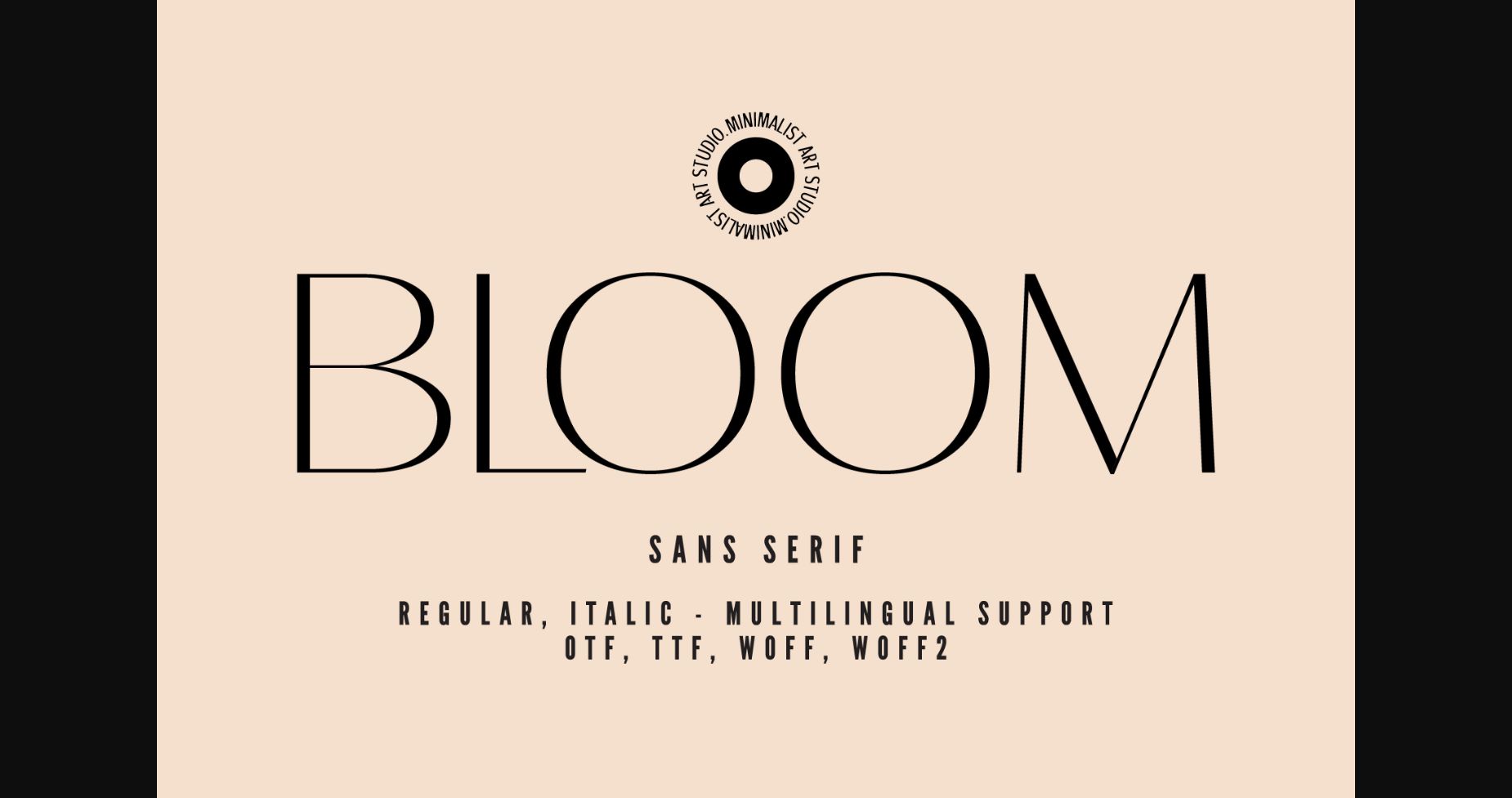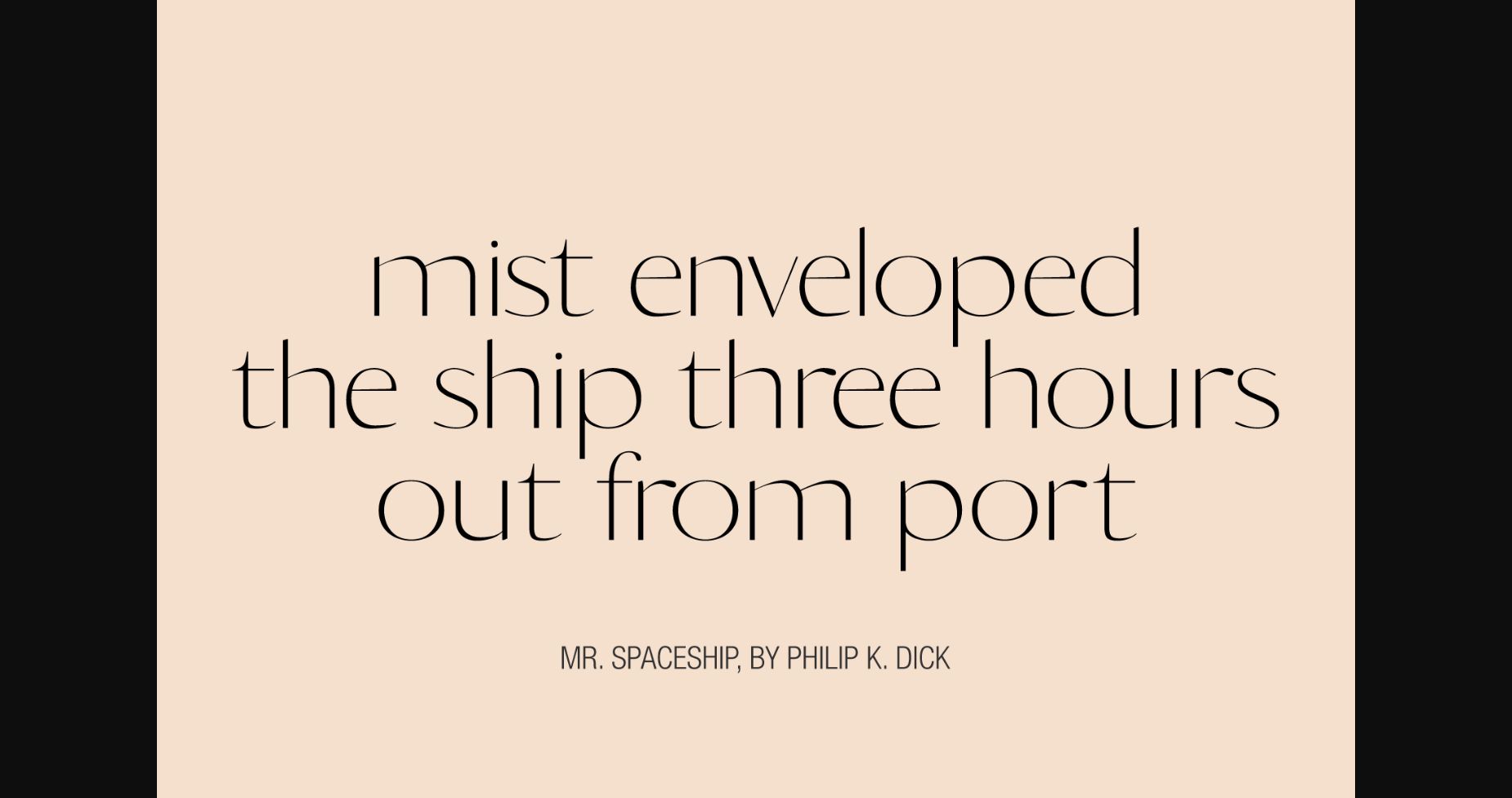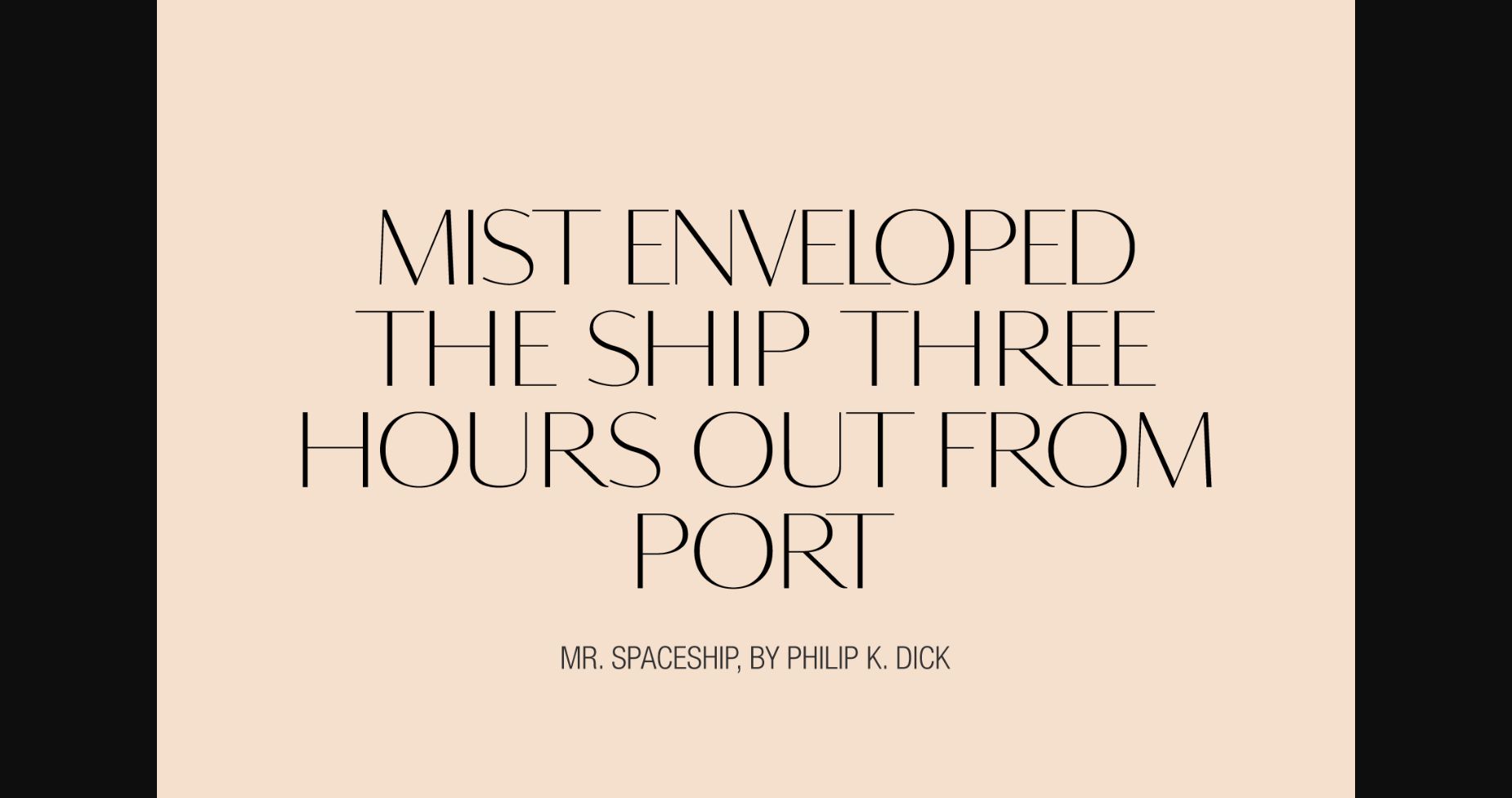
About Bloom Font
Introducing Bloom, the epitome of minimalist elegance in the world of typography. With its clean lines and modern design, this sans serif typeface is set to revolutionize the way you communicate your message.
Bloom captures the essence of contemporary sophistication with its sleek and refined letterforms. Its simplicity exudes a timeless charm that effortlessly enhances any project, from sleek corporate logos to eye-catching headlines. Designed with meticulous attention to detail, every curve and angle of Bloom is carefully crafted to create a harmonious balance between form and function.
Whether you’re a professional designer or a creative enthusiast, Bloom empowers you to make a bold statement with your words. Its versatile nature allows it to seamlessly adapt to various contexts, while maintaining its distinct personality. The airy spacing between characters ensures optimal legibility, ensuring that your message is effortlessly conveyed to your audience.
Bloom is a typeface that embraces modern aesthetics without sacrificing clarity and readability. It is the perfect blend of minimalism and sophistication, making it ideal for a wide range of applications. From minimalist branding and editorial layouts to modern websites and user interfaces, Bloom brings a touch of elegance and refinement to every project.
Embrace the beauty of simplicity and let Bloom elevate your design to new heights. With its clean and elegant style, this sans serif typeface will captivate your audience, leaving a lasting impression. Discover the power of Bloom and unlock a world of creative possibilities today.
Bloom captures the essence of contemporary sophistication with its sleek and refined letterforms. Its simplicity exudes a timeless charm that effortlessly enhances any project, from sleek corporate logos to eye-catching headlines. Designed with meticulous attention to detail, every curve and angle of Bloom is carefully crafted to create a harmonious balance between form and function.
Whether you’re a professional designer or a creative enthusiast, Bloom empowers you to make a bold statement with your words. Its versatile nature allows it to seamlessly adapt to various contexts, while maintaining its distinct personality. The airy spacing between characters ensures optimal legibility, ensuring that your message is effortlessly conveyed to your audience.
Bloom is a typeface that embraces modern aesthetics without sacrificing clarity and readability. It is the perfect blend of minimalism and sophistication, making it ideal for a wide range of applications. From minimalist branding and editorial layouts to modern websites and user interfaces, Bloom brings a touch of elegance and refinement to every project.
Embrace the beauty of simplicity and let Bloom elevate your design to new heights. With its clean and elegant style, this sans serif typeface will captivate your audience, leaving a lasting impression. Discover the power of Bloom and unlock a world of creative possibilities today.